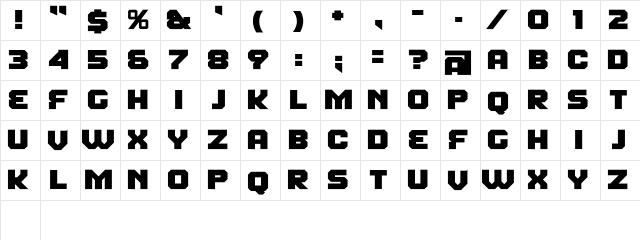
Fear Factor Black Regular
Foundry: Original Unknown, HT
Design Context for Fear Factor Black
Fear Factor Black is a composed and adaptable typeface that performs quietly and consistently across a wide range of design contexts.